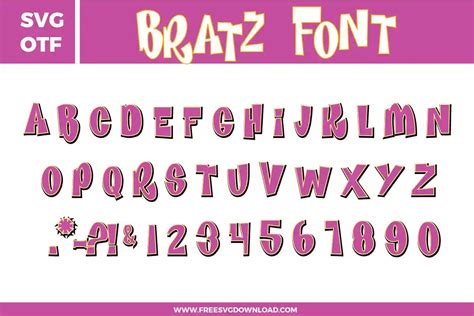
Bratz Lettering Font. Web the bratz font is a funky decorative font inspired by the popular lettering of the bratz dolls. It is a fun and playful font that can.
Web the “bratz” font is a custom typeface created for the branding of the bratz doll line and franchise. It is a fun and playful font that can. Web the bratz font is a funky decorative font inspired by the popular lettering of the bratz dolls.
It is a fun and playful font that can. Web the “bratz” font is a custom typeface created for the branding of the bratz doll line and franchise. It is a fun and playful font that can. Web the bratz font is a funky decorative font inspired by the popular lettering of the bratz dolls.